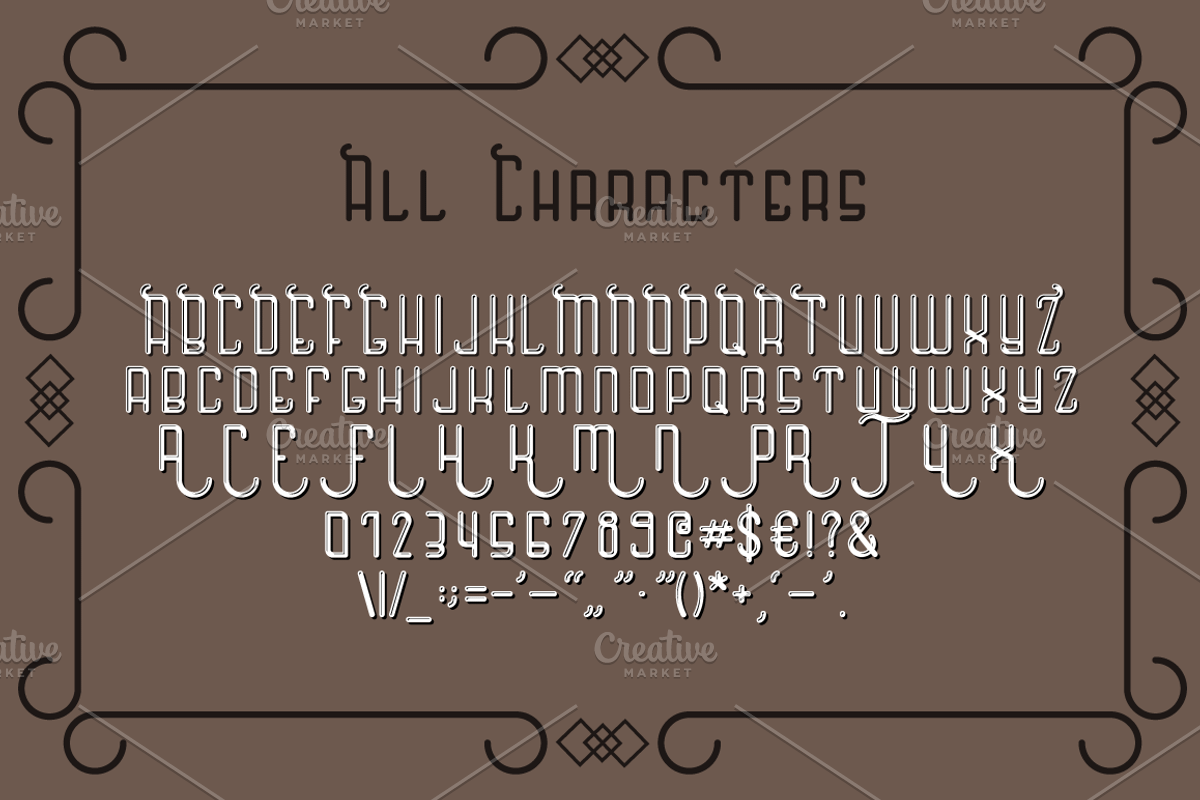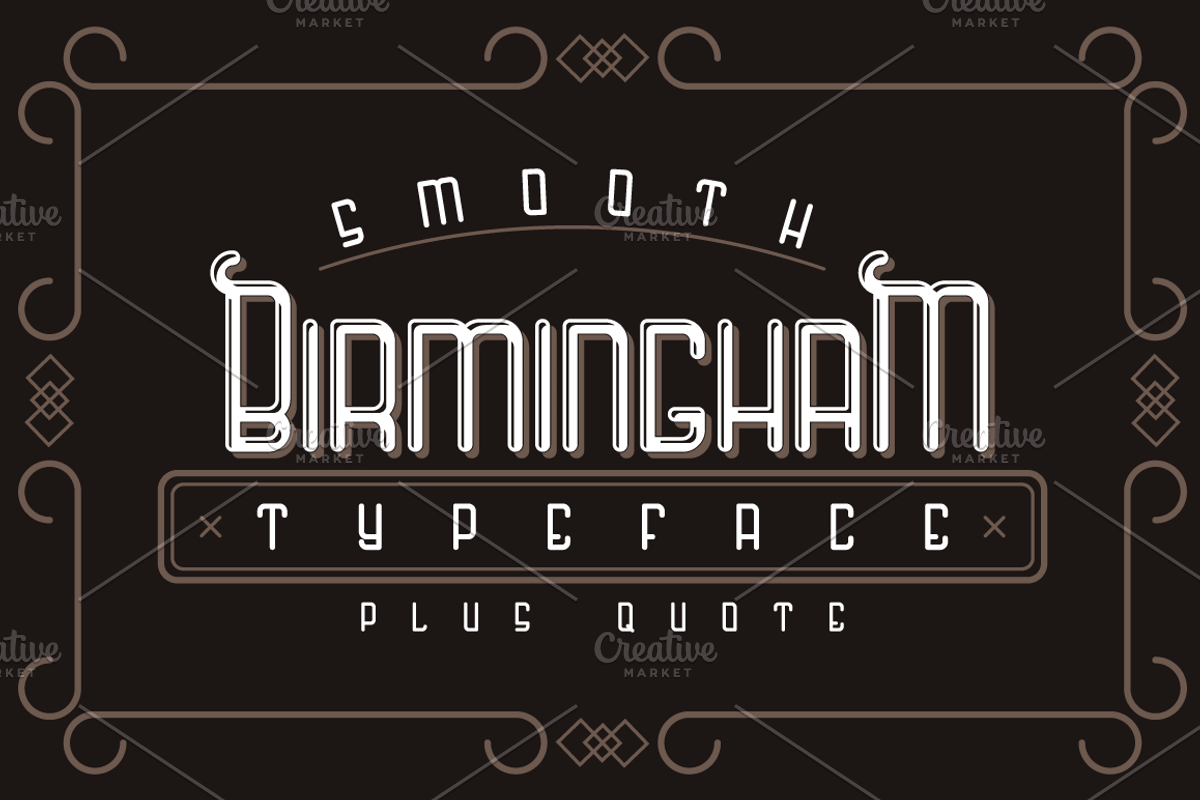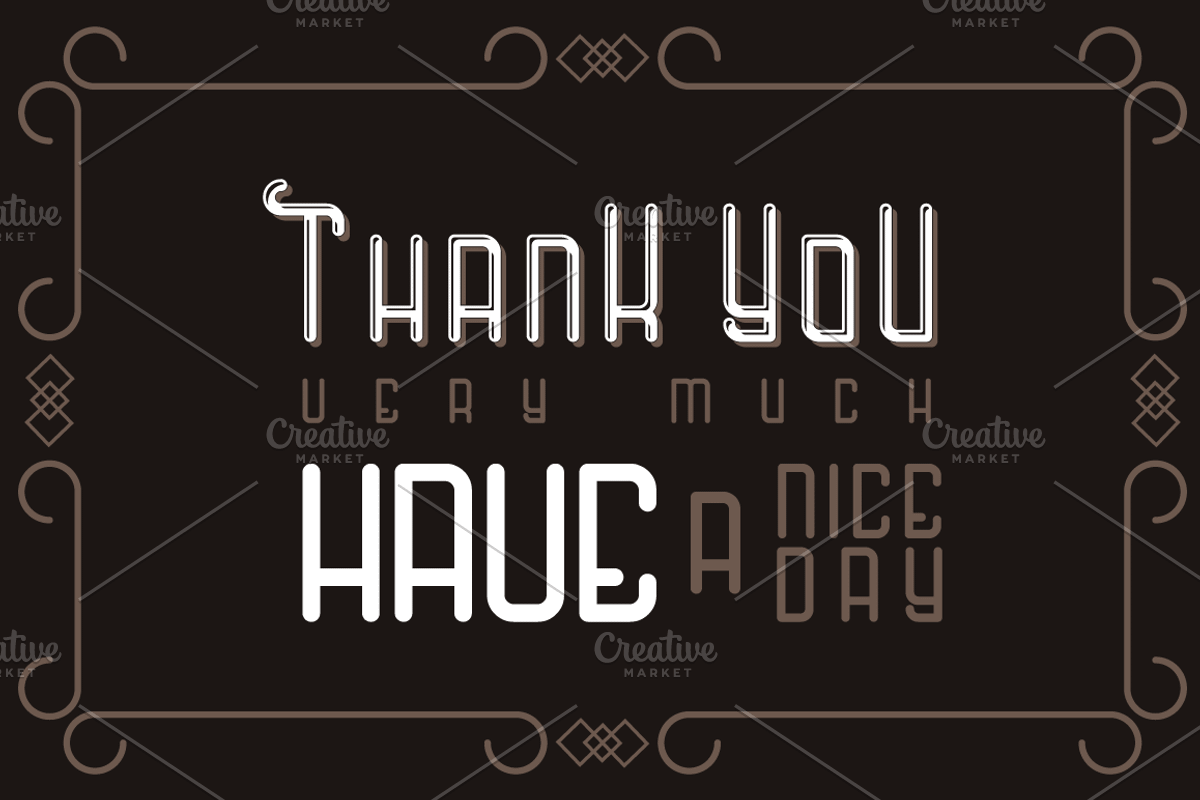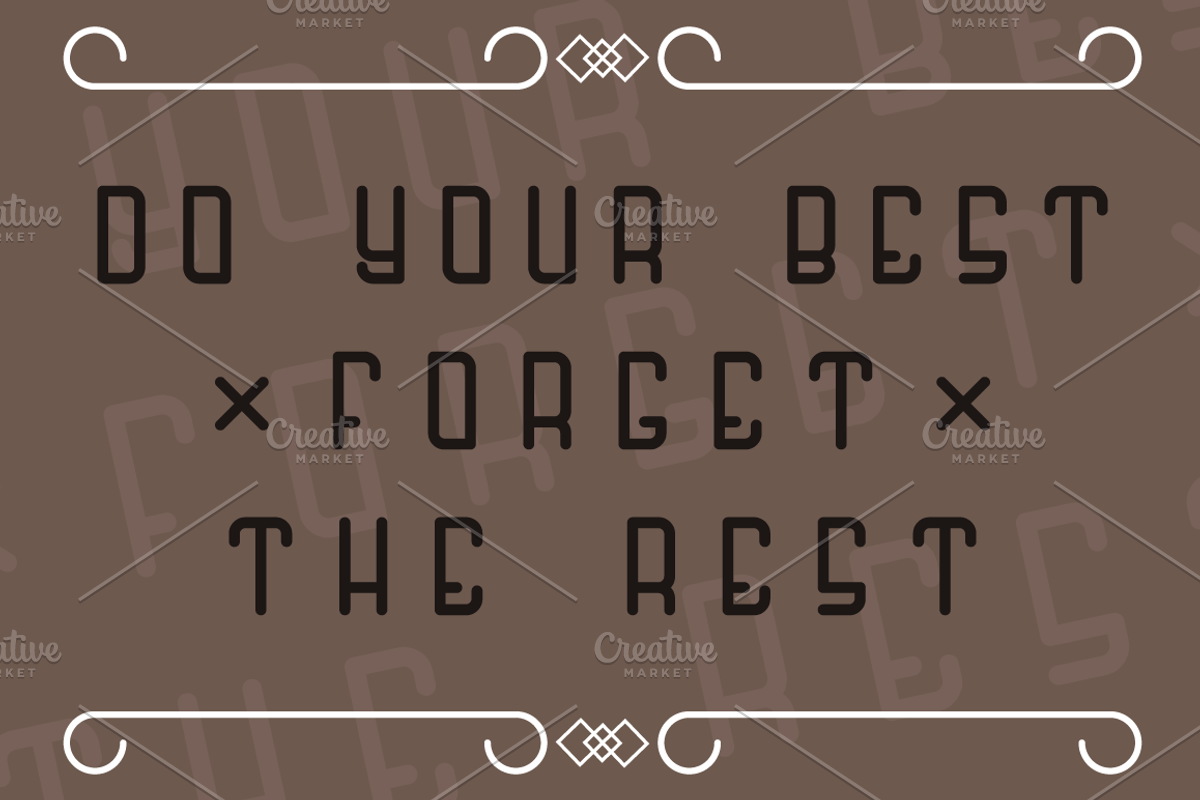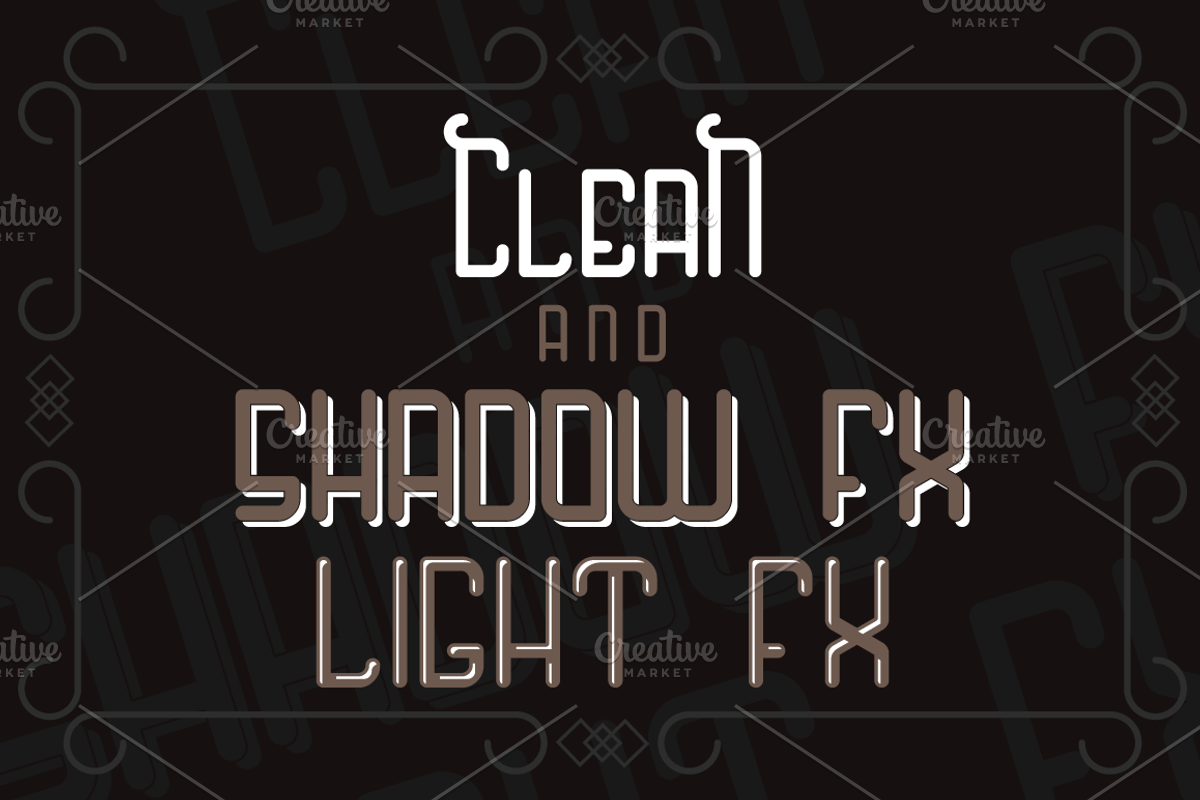
Birmingham typeface
Birmingham typeface + quote
Introducing the font named "Birmingham". It includes numbers & punctuation glyps (4th screenshot). It has special light and shdow effects that you can use appart from each other and together at the same time. As a bonus you get posters (2nd screenshot) in expanded EPS file.
- It includes numbers & punctuation glyps (4th screenshot).
- Birmingham Light FX Regular
- Birmingham Shadow FX Regular
- Birmingham Regural Regular
- Birmingham Shadow Light Regular
Why Birmingham typeface is worth a look
Birmingham typeface by Heatherinsane fits naturally into Branding, posters, packaging, typography.